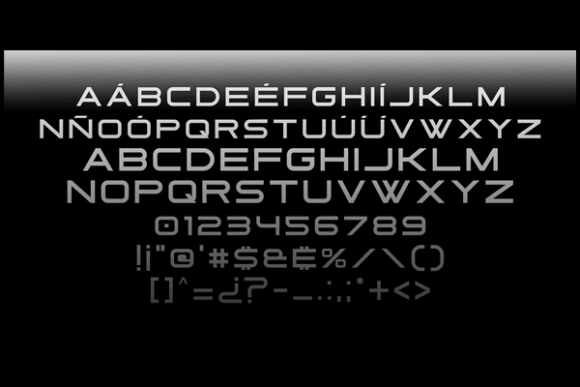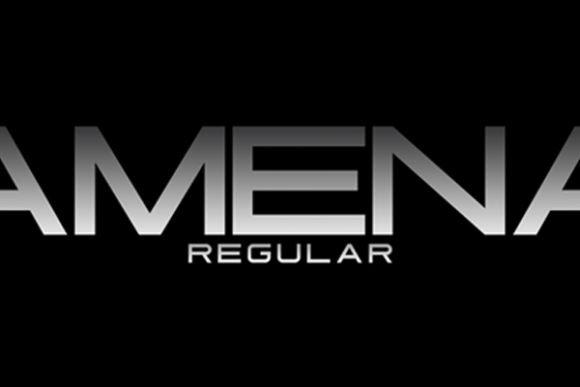
Amena – Regular Font: Elevate Your Designs with a Bold and Assertive Sans Serif Font
In the world of typography, a font can make or break a design. It’s the foundation upon which the entire visual identity is built. For designers and crafters, finding the perfect font that can elevate their creations is a constant quest. This is where Amena – Regular Font comes in, a bold and assertive sans serif font that can take your designs to the next level.
The Power of Sans Serif Fonts
Sans serif fonts have become increasingly popular in recent years, and for good reason. They offer a clean and modern aesthetic that can add a touch of sophistication to any design. Sans serif fonts are also highly versatile, making them suitable for a wide range of applications, from digital media to print materials.
Introducing Amena – Regular Font
Amena – Regular Font is a stunning sans serif font that exudes confidence and assertiveness. Its bold and sturdy design makes it perfect for headlines, titles, and any other application where you want to make a statement. The font’s clean lines and geometric shapes give it a modern and sleek look that’s sure to grab attention.
Key Features of Amena – Regular Font
- Bold and Assertive Design: Amena – Regular Font is designed to make a statement. Its bold and assertive design makes it perfect for headlines, titles, and any other application where you want to grab attention.
- Clean and Modern Aesthetic: The font’s clean lines and geometric shapes give it a modern and sleek look that’s perfect for digital media and print materials.
- Highly Versatile: Amena – Regular Font is highly versatile and can be used for a wide range of applications, from digital media to print materials.
- Easy to Read: Despite its bold design, Amena – Regular Font is easy to read, making it perfect for body text and other applications where readability is key.
Why Choose Amena – Regular Font?
So why choose Amena – Regular Font over other fonts? Here are just a few reasons:
- Unique Design: Amena – Regular Font has a unique design that’s sure to stand out in a crowded design landscape.
- High-Quality Typography: The font is designed with high-quality typography in mind, ensuring that your designs look professional and polished.
- Time-Saving: With Amena – Regular Font, you can save time and effort in your design process. The font is easy to use and can be applied to a wide range of applications.
How to Use Amena – Regular Font
Amena – Regular Font is easy to use and can be applied to a wide range of applications. Here are just a few ideas:
- Headlines and Titles: Use Amena – Regular Font for headlines and titles to add a touch of boldness and assertiveness to your designs.
- Digital Media: Use the font for digital media, such as website headers, social media graphics, and email marketing campaigns.
- Print Materials: Use Amena – Regular Font for print materials, such as brochures, flyers, and business cards.
| Font Name | Amena – Regular Font |
| Author | Qbotype Fonts |
In conclusion, Amena – Regular Font is a bold and assertive sans serif font that’s perfect for designers and crafters looking to elevate their designs. With its clean and modern aesthetic, highly versatile design, and easy-to-read typography, Amena – Regular Font is an incredible asset to any font library. Whether you’re working on a digital project or a print material, Amena – Regular Font is sure to make a statement.